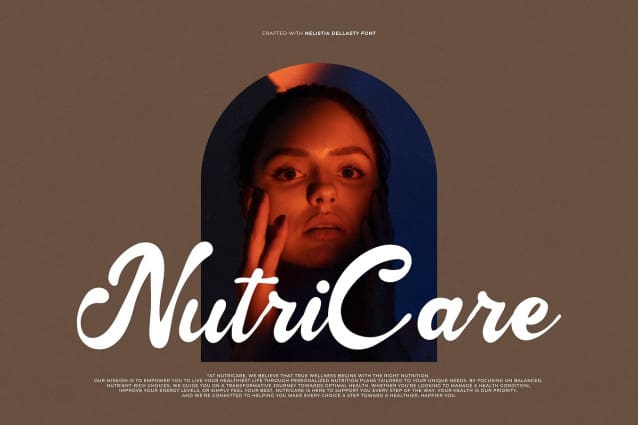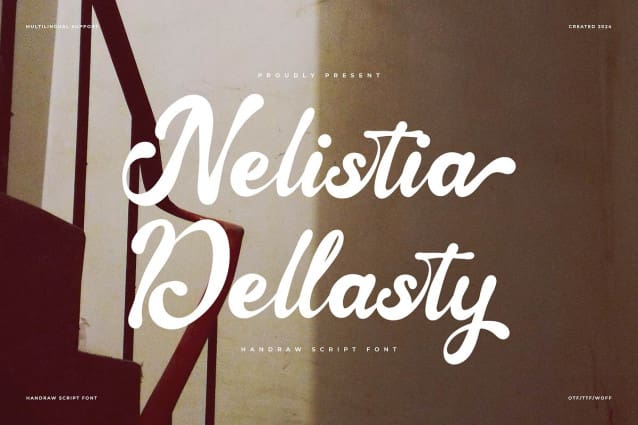
Nelistia Dellasty Font
Nelistia Dellasty Font | Hand Draw Script, from Denustudios, suitable for any projects such as: logos, branding projects, homeware designs, product packaging, mugs, quotes, posters, shopping bags, t-shirts, book covers, name card, invitation cards, greeting cards, label, photography, watermark, special events, and all your other lovely projects that need a Hand Draw Script taste.